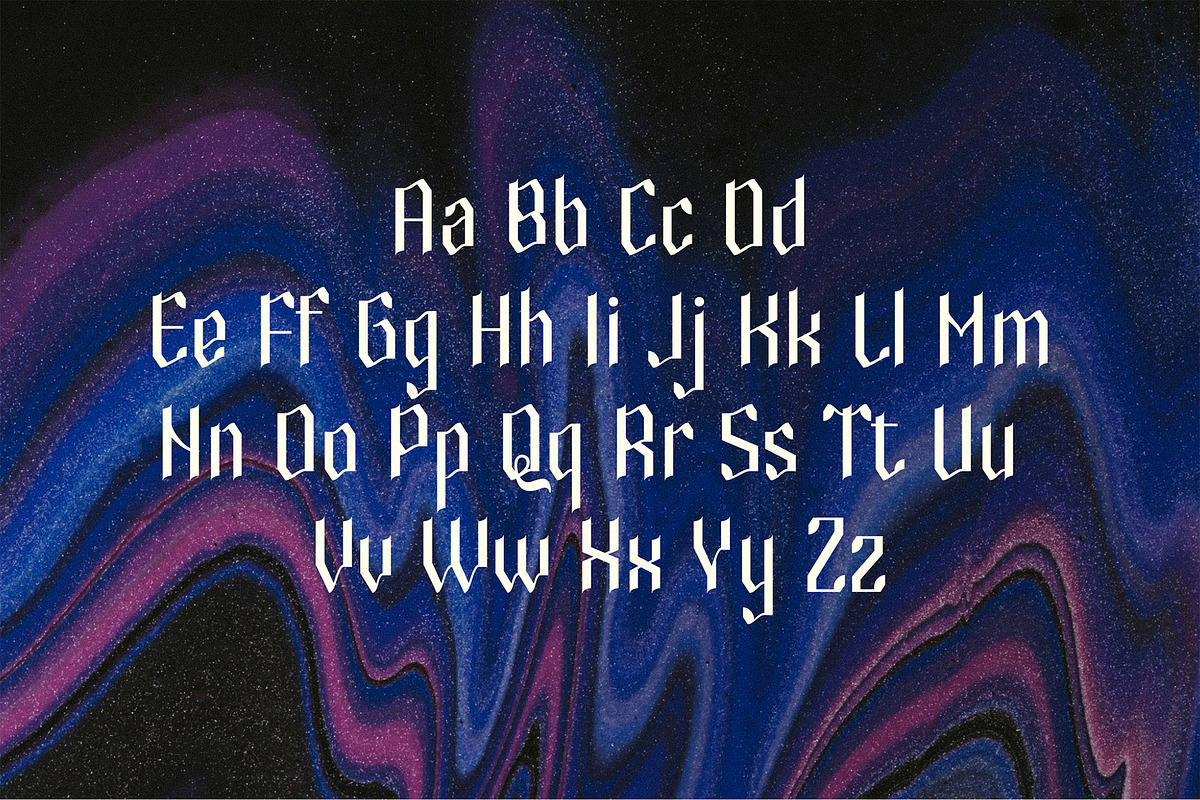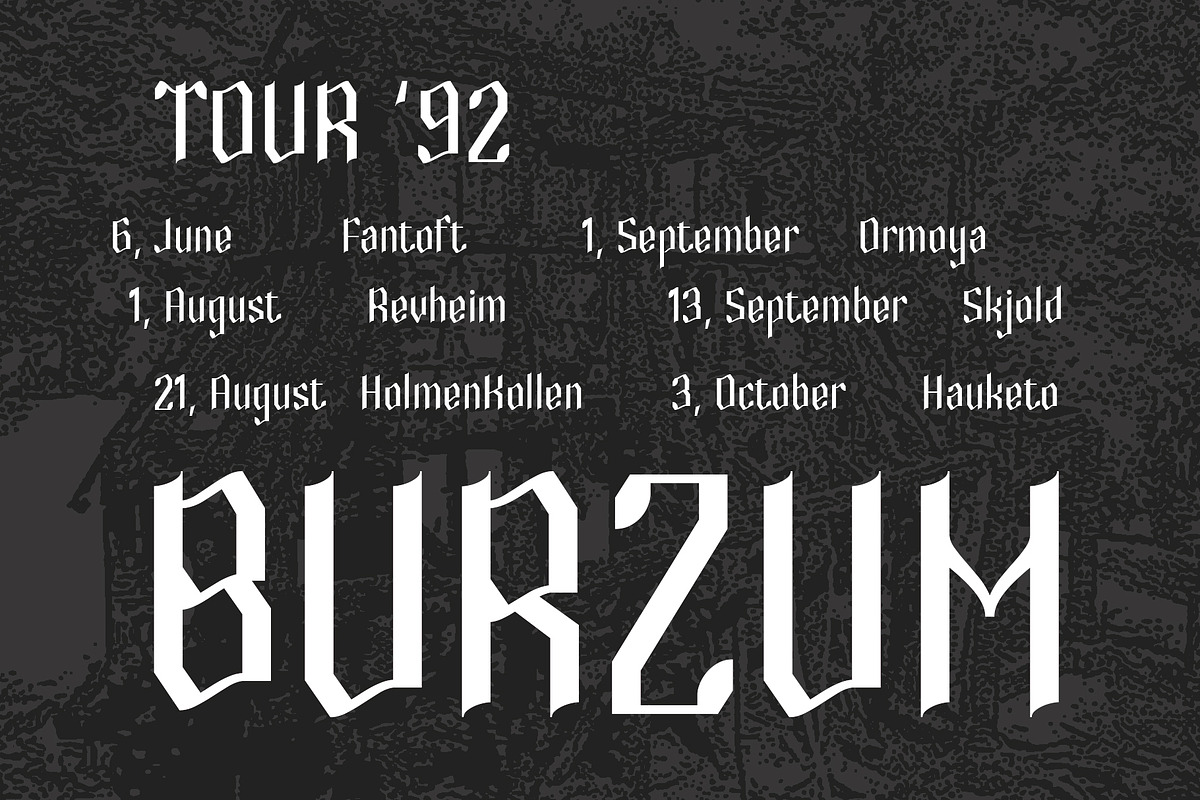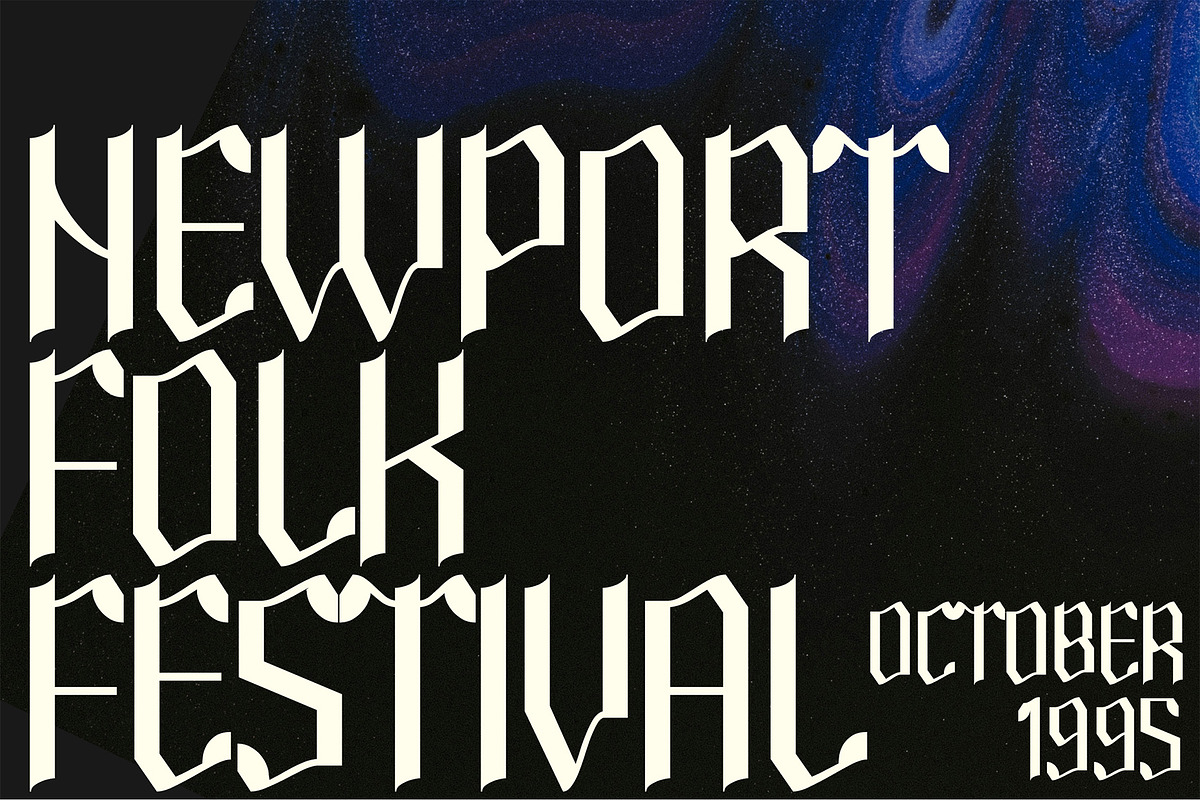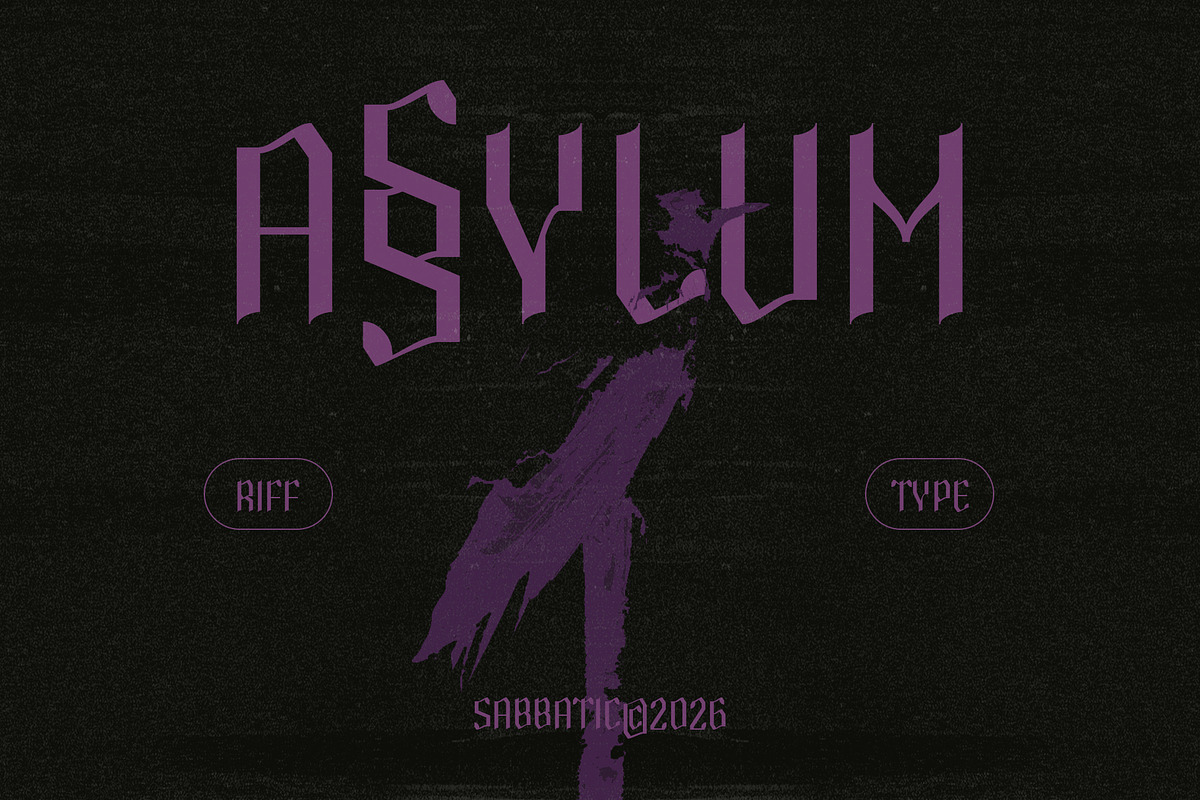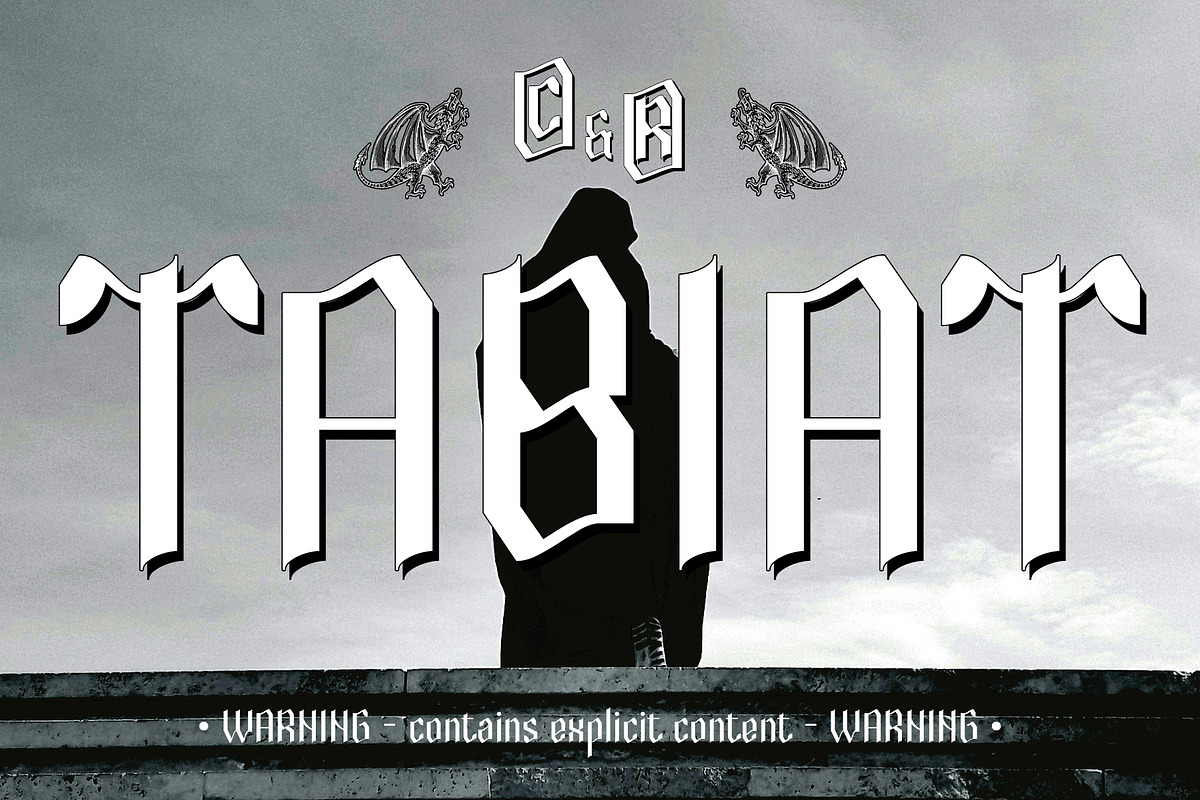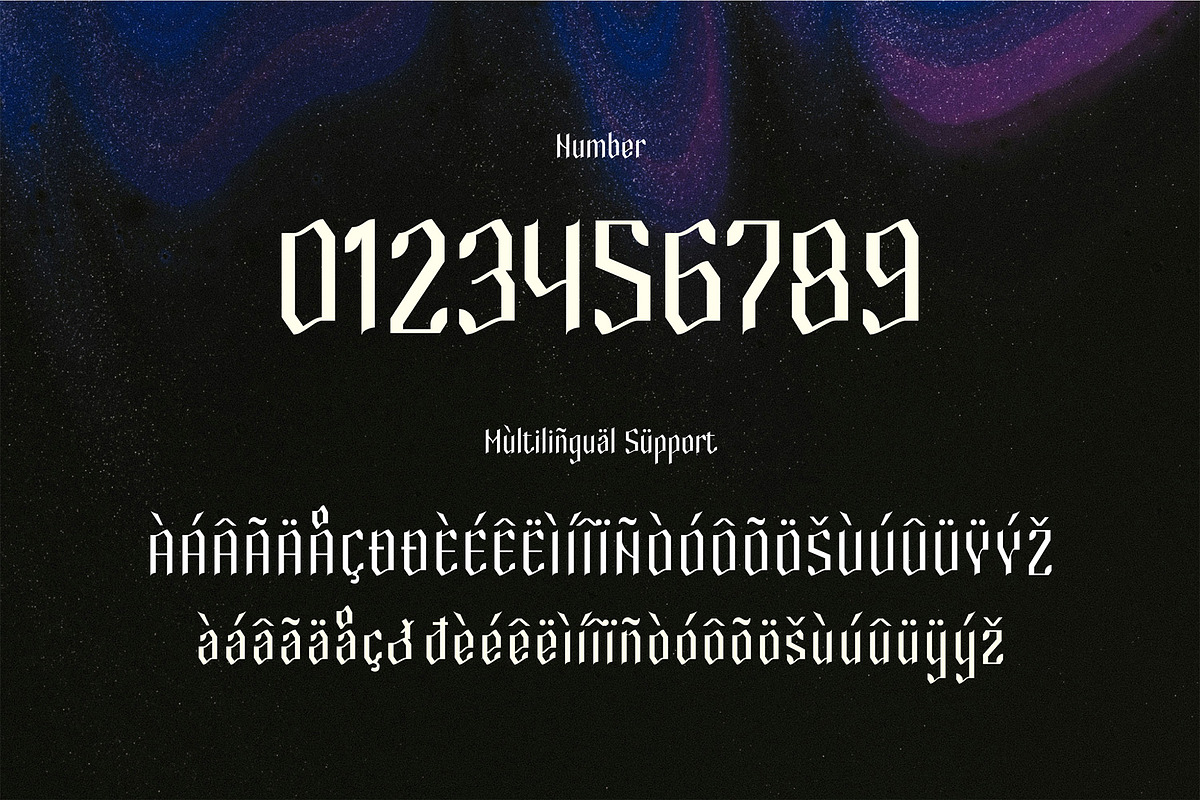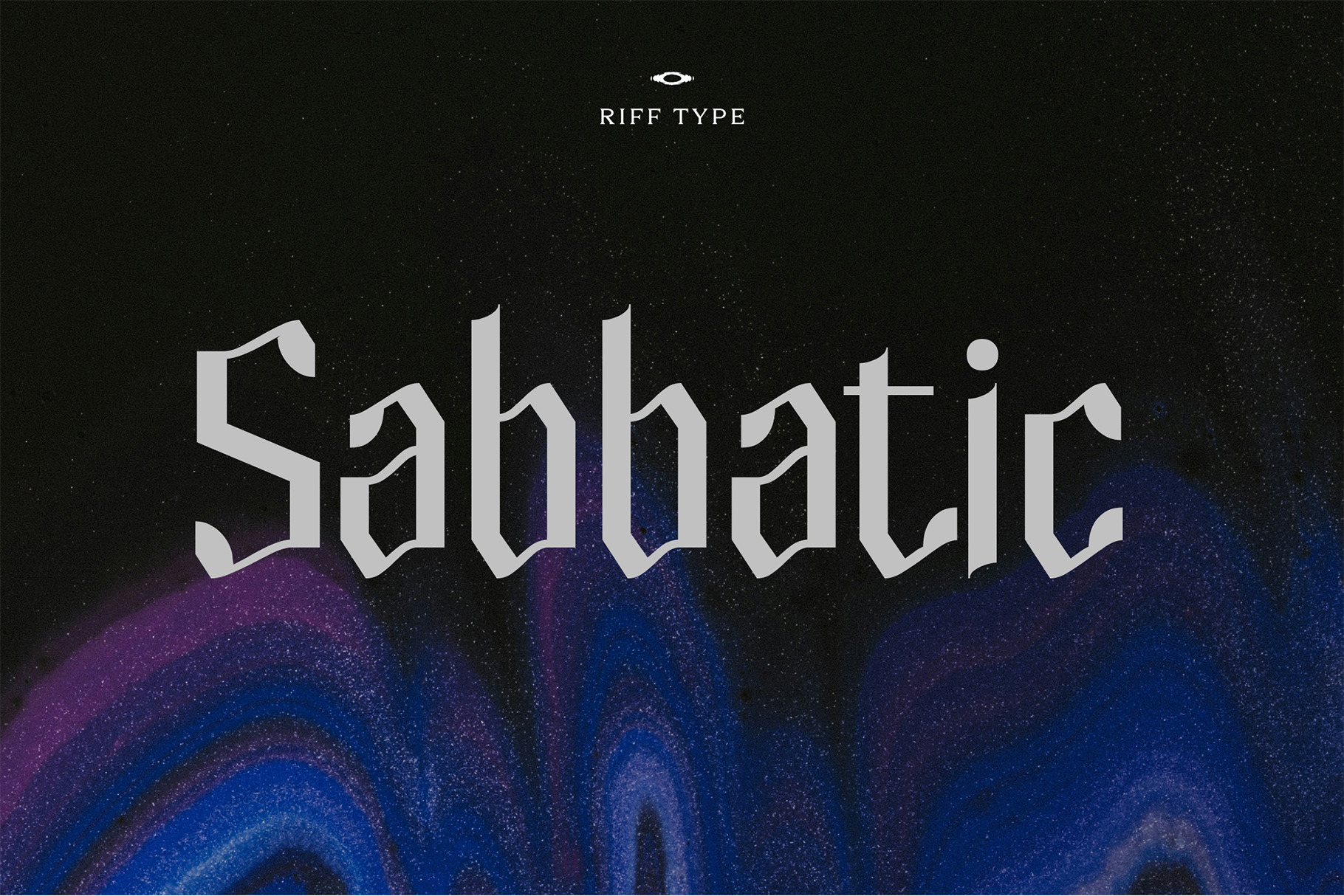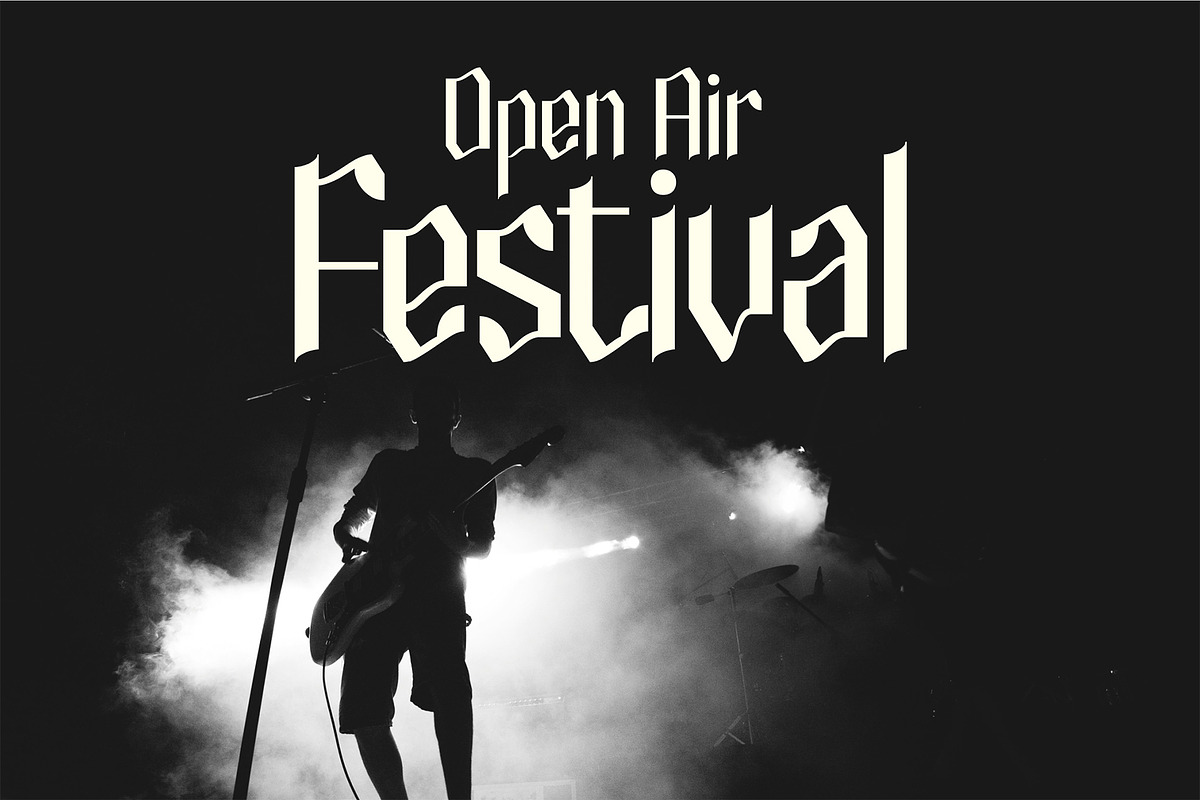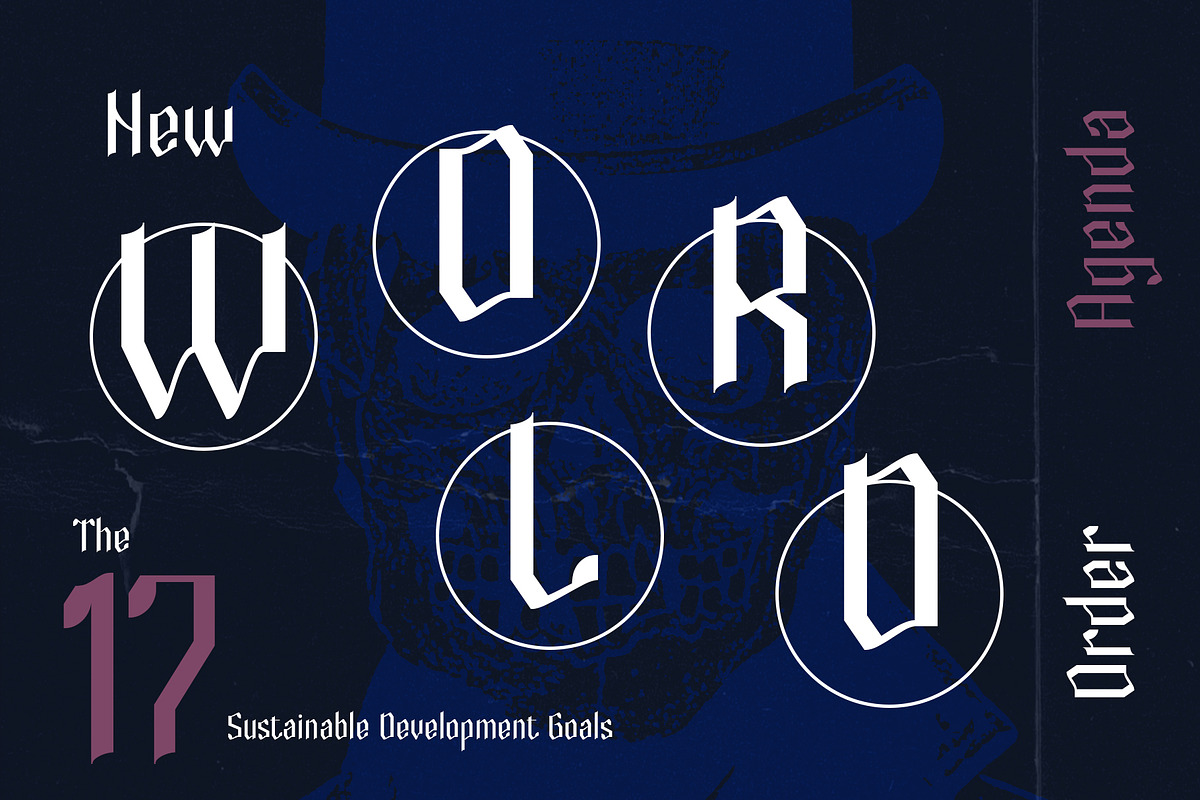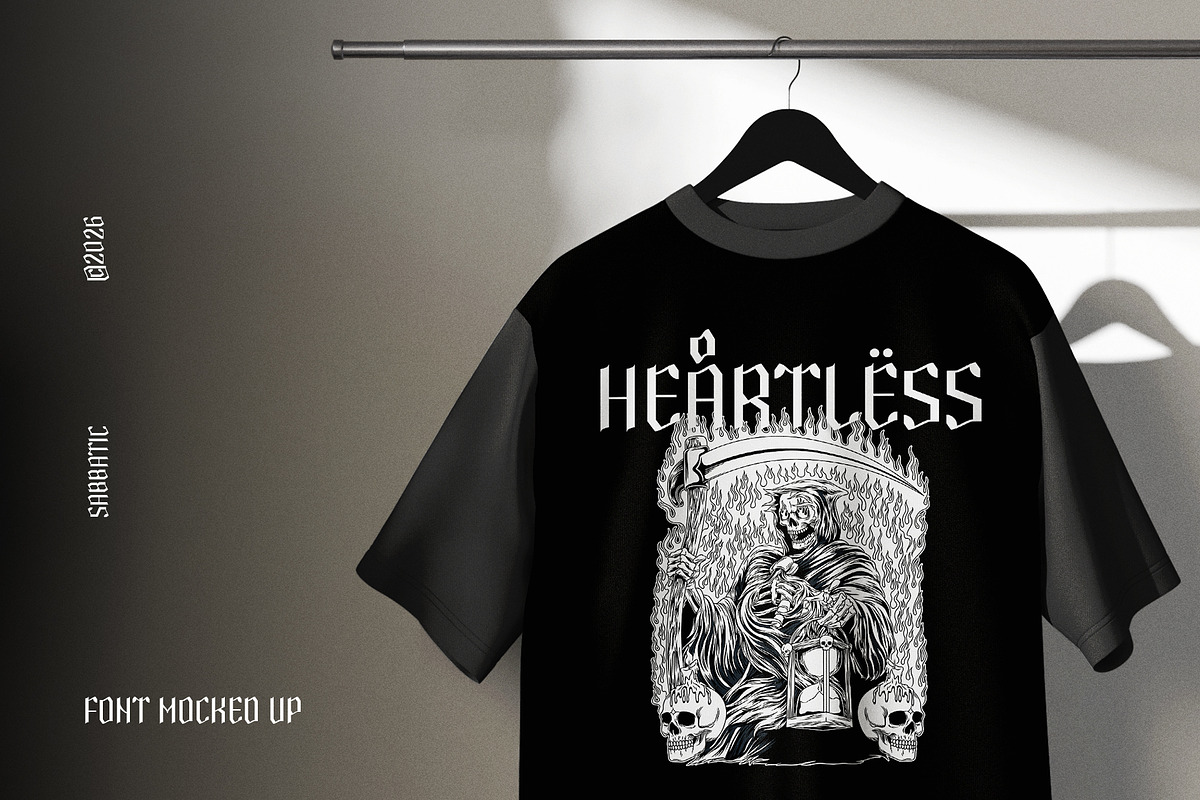
Sabbatic - Modern Doom Gothic Font
Sabbatic - a bold, gothic-inspired display font perfect for creating a dark, dramatic atmosphere.
The sharp, angular letterforms and dense structure capture the intensity of black metal, doom, and gothic rock in a modern interpretation. It brings a powerful, theatrical edge to your designs, ensuring your music projects stand out with a menacing and mysterious style.